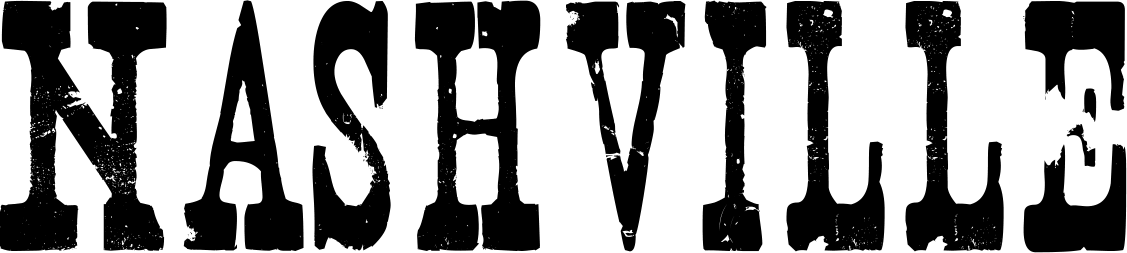
Nashville Font
Designed byDisturbed Type
Nashville font is designed in a tall and grunge style. This Western font shows you that you can have a combination of several styles and think of designing different Western themes at the same time.
Irregular spots and splashes on the characters show the creativity and, of course, the dust that exists in the Wild West. This rough font only contains capital letters and symbols. This cowboy font will help you in designing T-shirts, movie titles, and flyers.